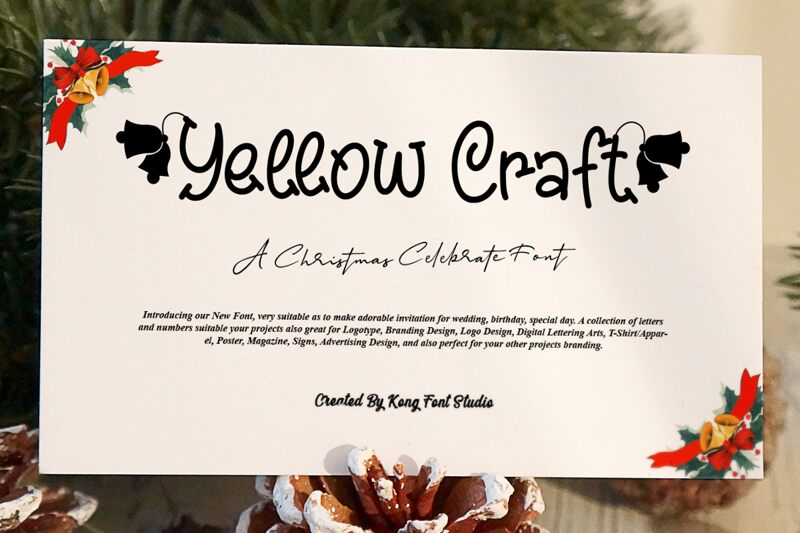
Yellow Craft, a creation by Kong Font, embodies the festive spirit with its charming Christmas style. This semi-light font boasts whimsical curves and playful serifs that evoke the warmth and joy of holiday crafts. Its aesthetic appeal lies in the delicate balance between handmade artistry and clean readability, making it a delightful choice for seasonal greetings, event invitations, and themed marketing materials.
The font's casual elegance is versatile enough to enhance any project seeking a touch of holiday cheer without overwhelming it. Whether you're designing a cozy café menu for December or crafting an enchanting banner for a winter festival, Yellow Craft offers that bespoke touch that resonates with celebratory moments. Embrace its unique character to bring your creative visions to life with an air of festive sophistication.